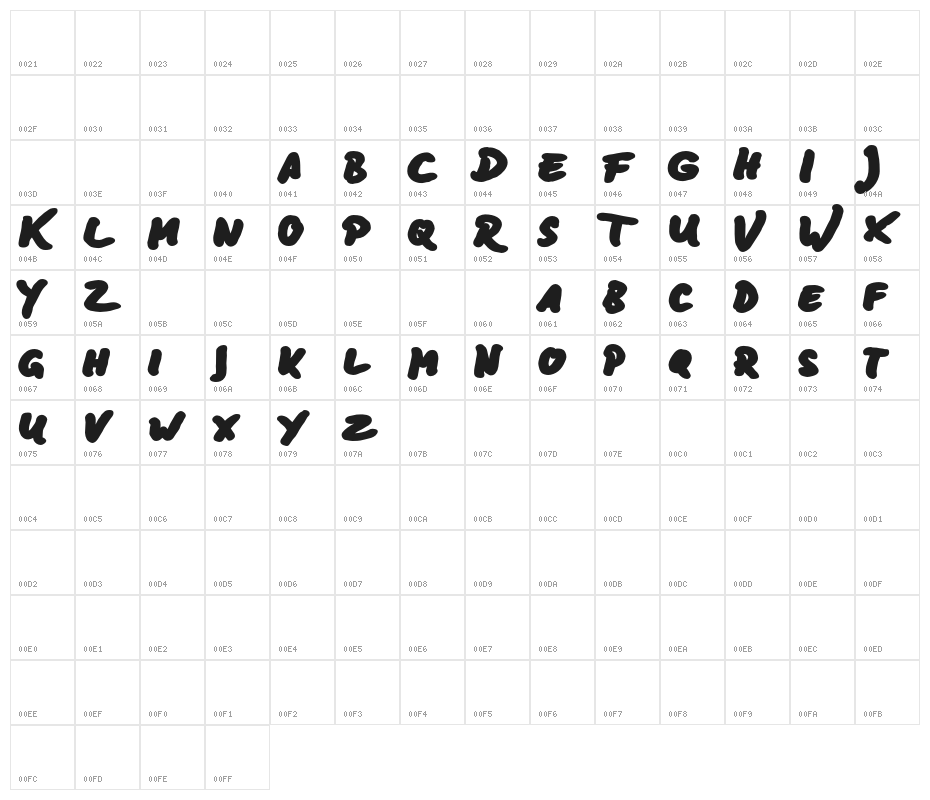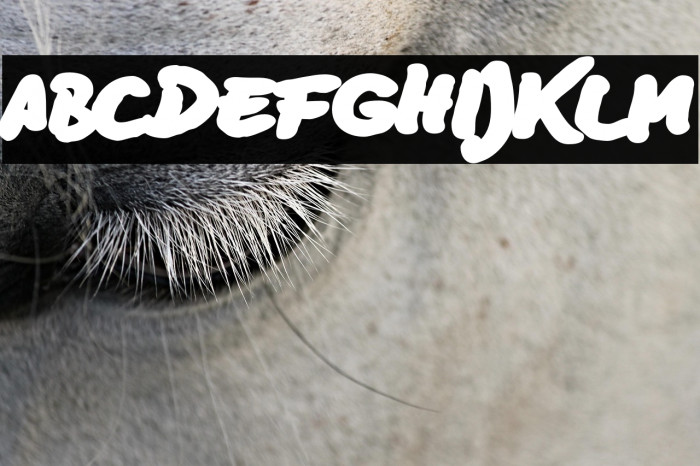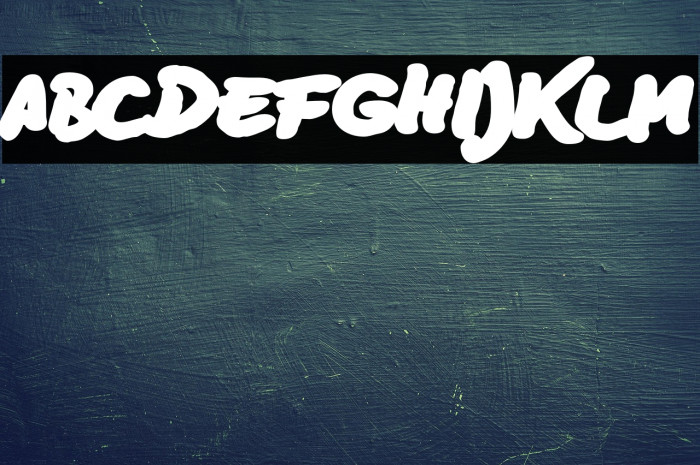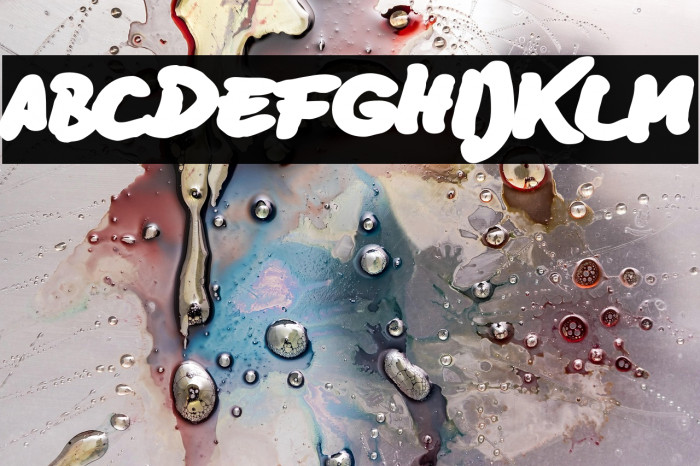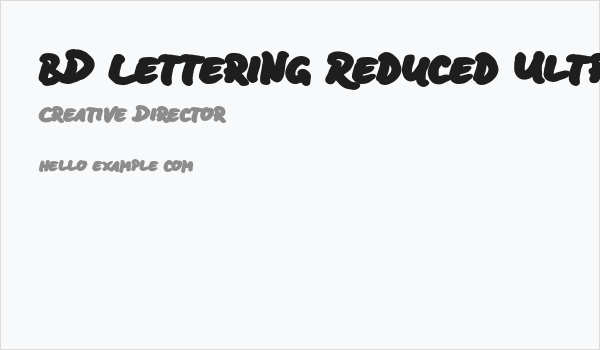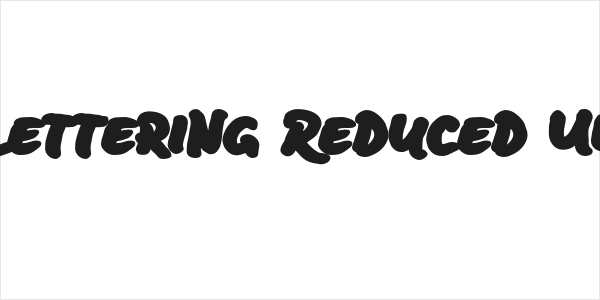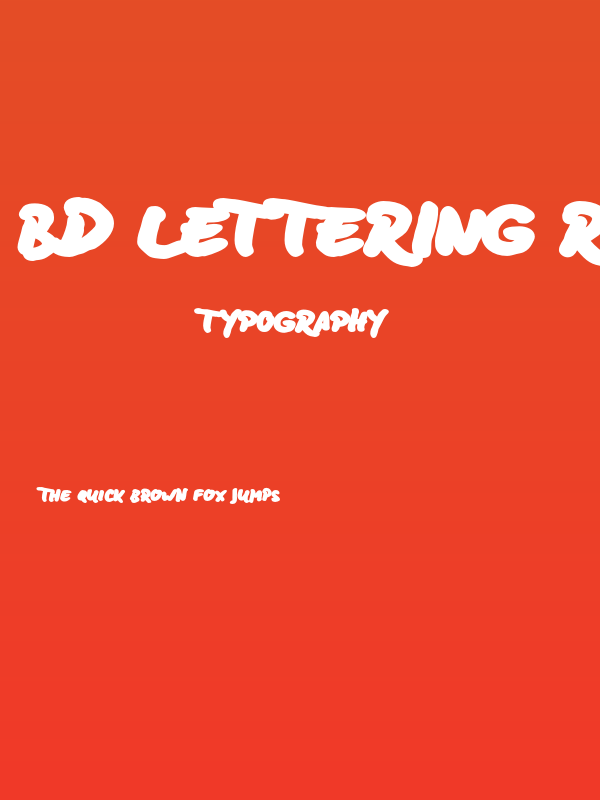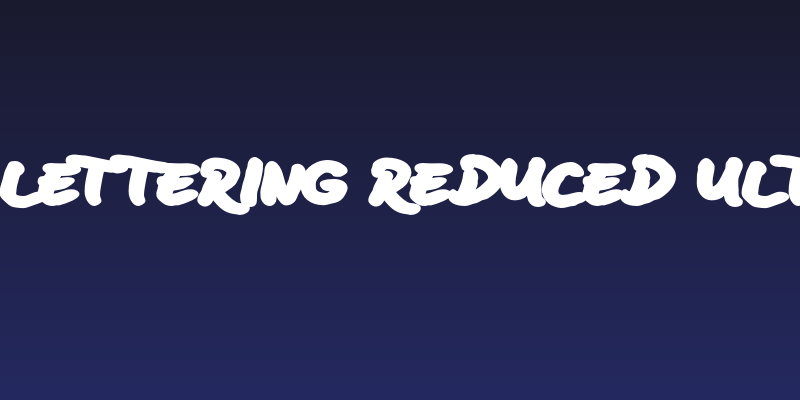
BD Lettering Reduced Ultra Font
BD Lettering Reduced Ultra Description
This font features a bold, handwritten style with thick, rounded strokes that give it a playful and energetic appearance. The letters are closely spaced, creating a sense of cohesion and flow. The uppercase and lowercase characters maintain a consistent style, with exaggerated curves and a slightly informal touch. This font is well-suited for designs that require a personal, approachable feel, such as invitations, posters, or branding for creative businesses. Its unique style makes it stand out, while the boldness ensures readability even at smaller sizes.
| Overall Style | Playful |
| Proposed Projects | Ideal for invitations, posters, branding for creative businesses, and any design needing a personal touch. |